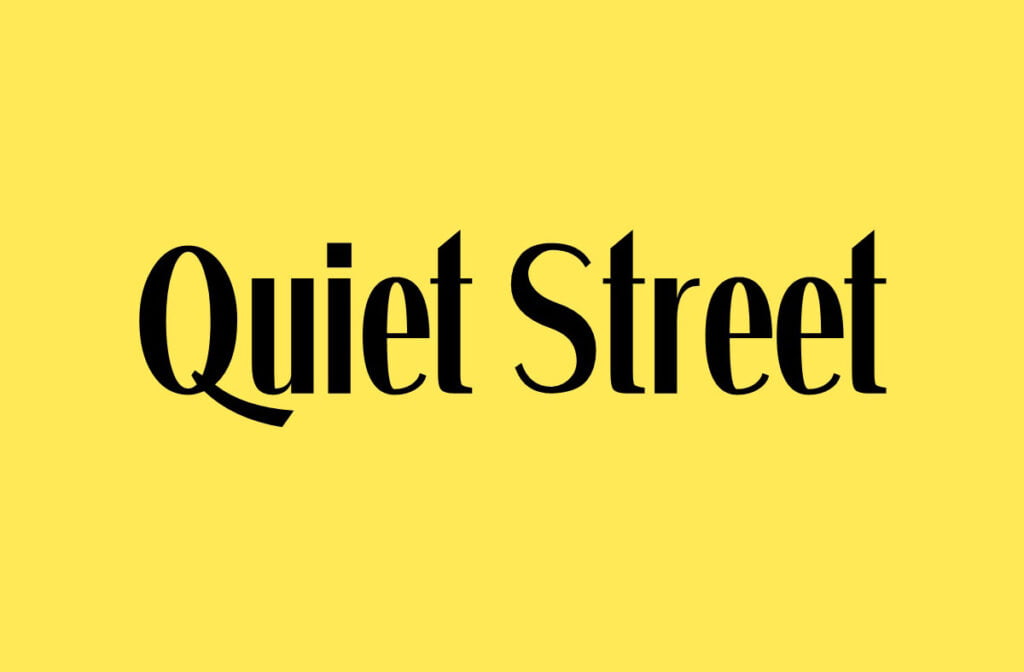
Quiet Streets Font
Introducing Quiet Streets Font! A very clean and wide font for headlines and logos. Quiet Streets designed and shared by Darrell Flood. Minimalistic and classy sans serif display typeface with more than 300 characters. Perfect for gorgeous logos, titles and typography design. Quiet Streets will pair beautifully with many fonts and complement every project you’re working on.
Quiet Streets Sans Display Font